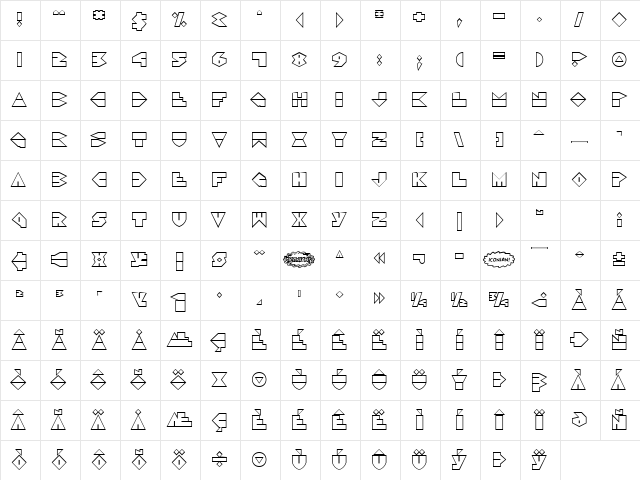
Disco Dork Outline is built around its visual character rather than neutral utility - its distinctive forms are designed to make an impression at display sizes.
Font Pairing: Pair with a clean neutral sans-serif for body copy to let Disco Dork Outline's character lead without overwhelming the composition.
Pro Tip: Use Disco Dork Outline exclusively at display sizes - it was designed to be seen, not read at length. Let a neutral companion handle body copy.